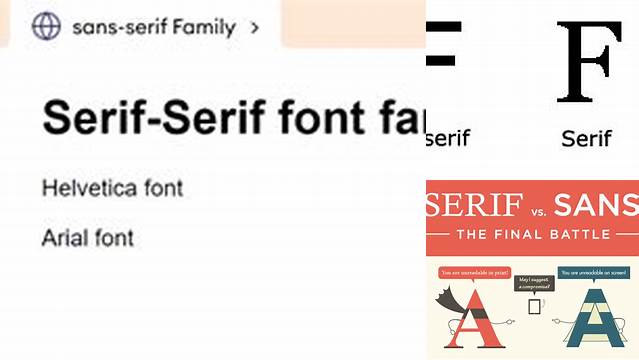
Hey guys, let's dive into the awesome world of using Sans Serif Fonts in CSS! This guide will walk you through everything you need to know, from the basics to some pro tips. We'll cover how to choose the right fonts, implement them in your code, and make your websites look fantastic. Get ready to level up your web design game!
1. Understanding Sans Serif Fonts: What are They?
Alright, so first things first: What exactly are sans serif fonts? Well, the term "sans serif" comes from French, meaning "without serif." Serifs, in the typography world, are those little decorative strokes or tails at the end of letters. Think of fonts like Times New Roman or Georgia – they have serifs. Sans serif fonts, on the other hand, lack these embellishments. They're clean, simple, and often considered more modern. Think of fonts like Arial, Helvetica, or Open Sans. They offer a sleek, minimalist look that's perfect for digital displays. The key characteristic of sans serif fonts is their straightforward design, making them incredibly readable, especially on screens. They're the go-to choice for websites, apps, and any digital content where clarity is key. The absence of serifs also makes them versatile. They work well in both headings and body text, offering a cohesive look throughout your design. Plus, their simplicity allows the content itself to shine, without being overshadowed by overly ornate typography. This makes them a great choice for creating a user-friendly experience. Understanding the basic definition of sans serif fonts is the first step in using them effectively in CSS. They are the foundation of clean, modern web design, and knowing their characteristics will help you choose the perfect font for your project. Remember, choosing the right font can significantly impact how users perceive your website, so choosing the right one can create a positive visual experience. So, when you think about sans serif fonts, think clarity, simplicity, and a modern vibe. That's the essence of their appeal!
2. Popular Sans Serif Fonts and Their Characteristics
Okay, now that you know what sans serif fonts are, let's talk about some of the most popular ones and what makes them special. Knowing the nuances of each font allows you to pair your design with the right choice. Firstly, we have Arial: A classic choice, Arial is widely available and known for its clean, neutral appearance. It's a workhorse font, suitable for a wide range of applications. Next up is Helvetica: This is a real icon, a staple of Swiss design. Helvetica has a modern and neutral appearance and is known for its legibility. It is also very versatile for many projects, including the web. Then there's Open Sans: Google's favorite is the Open Sans font. Open Sans is another excellent font, designed for readability. Another option is Roboto: Roboto, made by Google, is easy on the eyes and looks fantastic. It is ideal for user interfaces. Finally, we have Montserrat. It's a geometric sans serif with a unique personality. This font is a great option to add character to your design. Each sans serif font carries its personality. Arial is reliable, Helvetica is sophisticated, Open Sans is friendly, Roboto is futuristic, and Montserrat is stylish. Therefore, you should pick the font that matches your project's aesthetic. Choosing the right sans serif font can significantly impact your design. Selecting the right font that complements your content is key, so consider your audience and brand identity when making your decision. Remember, it's not just about looks; it's also about readability. Always test your font choices to ensure they look good on different devices and screen sizes. The font you pick will also affect the overall aesthetic, so you need to pick the best one.
3. Implementing Sans Serif Fonts in CSS: The Basics
Let's get down to the nitty-gritty: how to actually use sans serif fonts in your CSS. It's actually pretty simple, and I'll break it down for you step by step. First, you'll need to find a font. You can use fonts that are already installed on your user's computer (like Arial or Helvetica), or you can use web fonts (like those from Google Fonts). Web fonts give you a wider range of options. Then, you'll want to use the font-family
property in your CSS. This is the magic wand that tells your browser which font to use. For example, to set the font for all your <h1>
headings to Arial, you'd write something like this:
h1 { font-family: Arial, sans-serif; }
- What's happening here? You're setting the
font-family
property for your<h1>
elements. You list the font you want to use first (Arial). Then, you provide a fallback font (sans-serif). The browser will try to use Arial. If it can't find Arial on the user's computer, it will use the default sans-serif font (which is usually something like Helvetica or Arial). So, in essence, your code tells the browser to use the font. Next, you can use the font for other elements: you can apply it to various elements like paragraphs, navigation menus, and more. Just modify the selector (e.g.,p
,nav
) and apply thefont-family
property. This offers consistency and reinforces the overall look of your site. Finally, consider using web fonts. They offer a wider range of design possibilities.
4. Using Google Fonts for Sans Serif Fonts
Alright, let's amp things up a bit and talk about using Google Fonts. Google Fonts is a goldmine of free, high-quality fonts, and it's super easy to use. Google Fonts offers a vast library of sans serif options, including the popular Open Sans, Roboto, and Montserrat. To get started, go to the Google Fonts website and browse their selection. Find the sans serif font you like and click on it. You'll then see a button that says "Select this style." Clicking this adds the font to your selection. You can select multiple fonts at once. After you've made your selections, click the "View your selected families" button at the top. On the next page, Google Fonts will provide you with two ways to use the font: the <link>
method and the @import
method. For the <link>
method, you'll copy a <link>
tag and paste it into the <head>
section of your HTML document. For the @import
method, you'll copy an @import
statement and paste it into your CSS file. You can then use the font in your CSS using the font-family
property, just like we discussed before. Remember, the key is to use the font name exactly as it appears on Google Fonts. For example, if you chose "Roboto," your CSS would look something like this:
body { font-family: 'Roboto', sans-serif; }
- And that's it! You've successfully added a Google Font to your website.
5. Font Stacks: Creating Fallback Systems for Sans Serif Fonts
Okay, let's talk about font stacks. A font stack is a list of fonts that the browser will use in order if the first font isn't available. This is super important for ensuring your website looks consistent across different devices and browsers. The font-family
property allows you to specify multiple fonts, separated by commas. The browser will try to use the first font. If it can't find it, it will move on to the next font, and so on. This creates a fallback system, guaranteeing a reasonable appearance. For example, consider the following code:
p { font-family: 'Open Sans', Arial, sans-serif; }
- Here, the browser will first try to use Open Sans. If Open Sans isn't available (maybe the user's device doesn't have it installed), it will try Arial. Finally, if Arial isn't available, it will use the default sans-serif font. Building good font stacks is about prioritizing your desired fonts while providing backup options. Start with your preferred font (like Open Sans). Then, add a similar font as a fallback (like Arial). Finally, include a generic font family (like sans-serif) as a last resort. This ensures that the content always displays with a sans serif font, even if the specific fonts aren't available. Remember, font stacks are important to ensure consistency, so make sure to build a good one for your website. The better your fallback options are, the better your design will look on every user's device. This is a great practice to ensure everyone sees the same visual experience.
30. Resources and Tools for Sans Serif Font Selection and Implementation
Let's wrap up with some great resources and tools to help you with your sans serif font journey! First, use Google Fonts. Google Fonts offers a vast library of free fonts. Next, use online font pairing tools. These tools help you find the perfect font pairings. Also, use font preview tools. These tools show you how your font will look. Then, explore CSS font generators. These tools help you generate the CSS code for your fonts. Finally, be sure to consult design blogs and websites. These sources will provide you with inspiration. These resources will help you. These resources will help you select fonts, and create the website of your dreams. These tools will make your life easier.